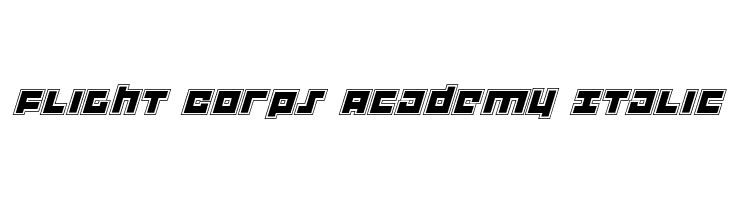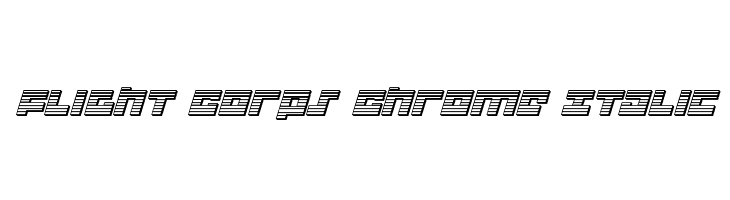
A bold, italicized font with a futuristic, chrome-like design and striped effect.
A bold, geometric, and condensed font with a futuristic industrial style.
A bold, geometric, and condensed font with a futuristic digital aesthetic.
A bold, angular, and condensed italic font with a futuristic style.
A bold, condensed, and italicized font with a futuristic, geometric style.
A bold, geometric, and italic font with a futuristic and expanded style.
A futuristic, gradient-lined font with a bold, geometric style.
A bold, futuristic font with a gradient effect and italicized style, featuring tight character spacing.
A bold, futuristic font with a halftone pattern and geometric design.